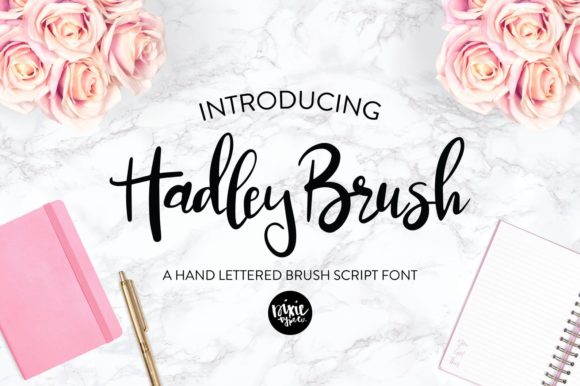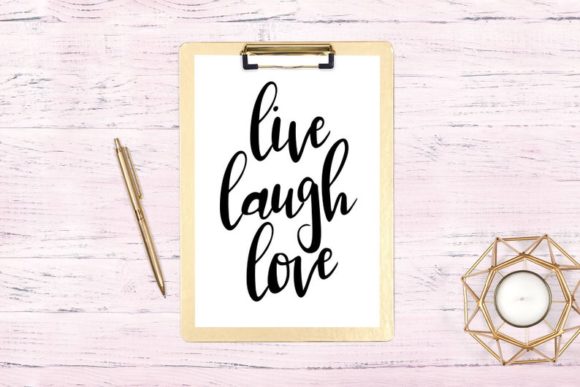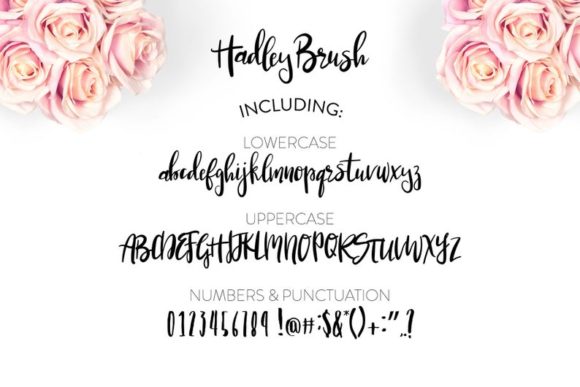
Hadley Brush Font
About Hadley Brush Font
Hadley Brush is a bold handwritten font, carefully handcrafted to become a true favorite. Its casual charm makes it appear wonderfully down-to-earth, readable and, ultimately, incredibly versatile. Hadley Brush will look outstanding in any context, whether it’s being used on busy backgrounds or as a standalone headline!